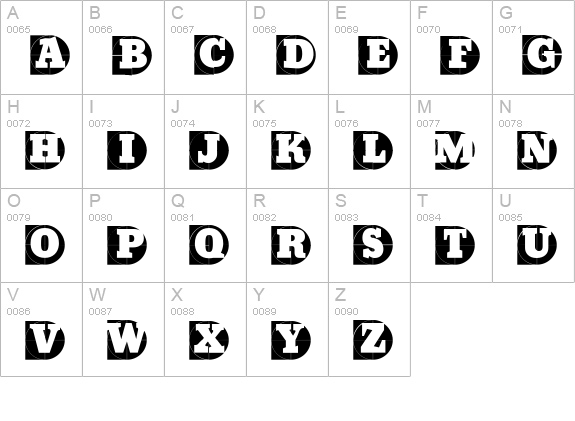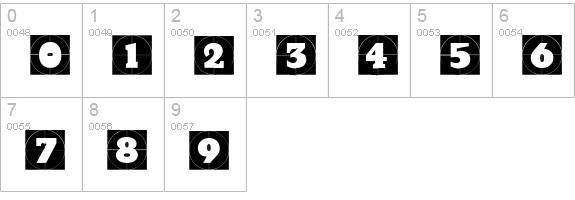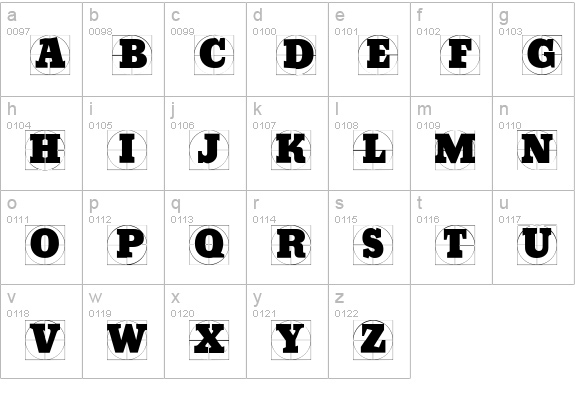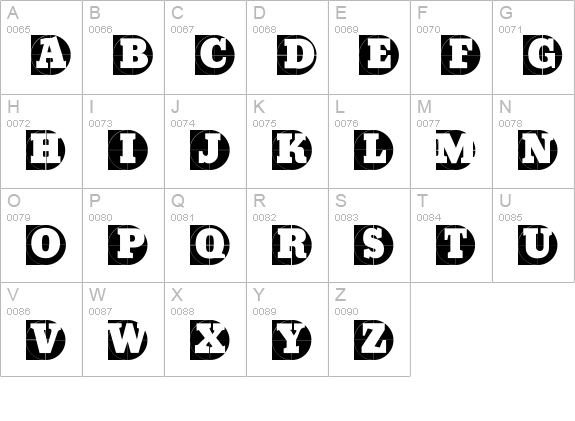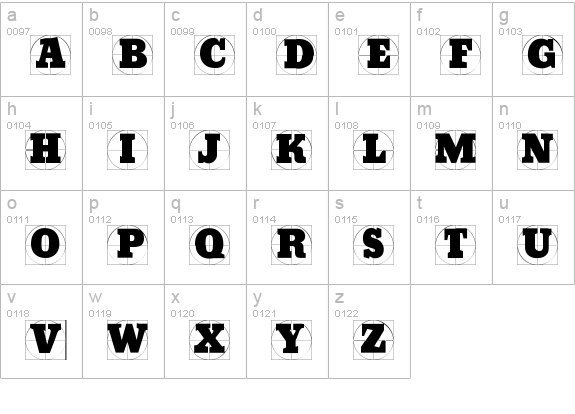
GridConcreteDue Font Details
GridConcreteDue font is a modern and sophisticated typeface that combines grid-like elements with a solid, concrete-inspired design. Its unique style gives off a sense of strength and stability, making it perfect for projects that require a bold and impactful look. The sharp edges and clean lines of GridConcreteDue font add a touch of industrial flair to any design, making it a versatile choice for a wide range of applications. Best of all, GridConcreteDue font is completely free to download at FontsMarket.com. Whether you're working on a branding project, poster design, or website layout, this font is sure to make a statement and leave a lasting impression. Download GridConcreteDue font today and unleash its powerful aesthetic in your next creative endeavor.